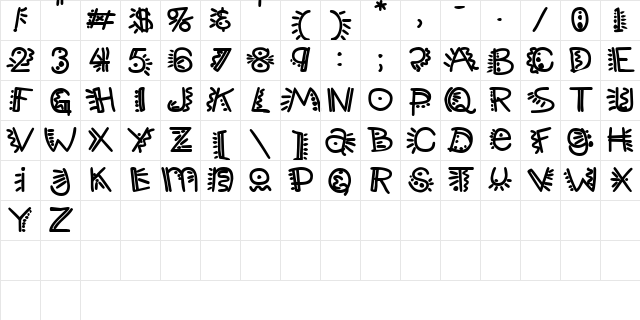
ManicPopThrill Heavy
Design Context for ManicPopThrill
ManicPopThrill is a composed and adaptable typeface that performs quietly and consistently across a wide range of design contexts.
Pro Tip: Use ManicPopThrill in both headline and body roles to test its range before committing to a single application.